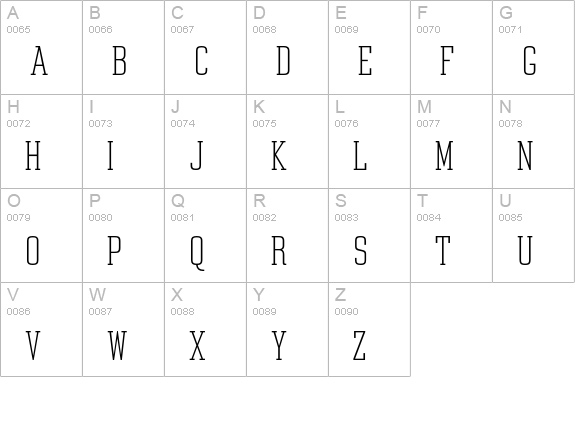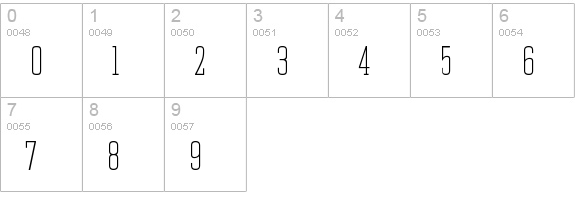
Constructa-Thin Font Details
Constructa-Thin is a delicate, low-contrast variant in the Constructa typeface family \xE2\x80\x94 well suited to fashion editorial, minimal branding, and high-contrast display.
Constructa-Thin font is a sleek and modern typeface that exudes elegance and sophistication. With its clean lines and minimalist design, this font is perfect for creating a contemporary and professional look in any project. The thin weight adds a touch of delicacy, making it ideal for headings, titles, and branding materials. What sets Constructa-Thin font apart is its versatility - it can be used in a variety of design projects, from websites to print materials. Whether you're working on a corporate presentation, a fashion magazine layout, or a sleek website design, this font will elevate your work to the next level. And the best part? Constructa-Thin font is available for free download at FontsMarket.com. You can easily access this stylish and sophisticated font to enhance your design projects without breaking the bank. Don't miss out on the opportunity to add Constructa-Thin font to your font library today!